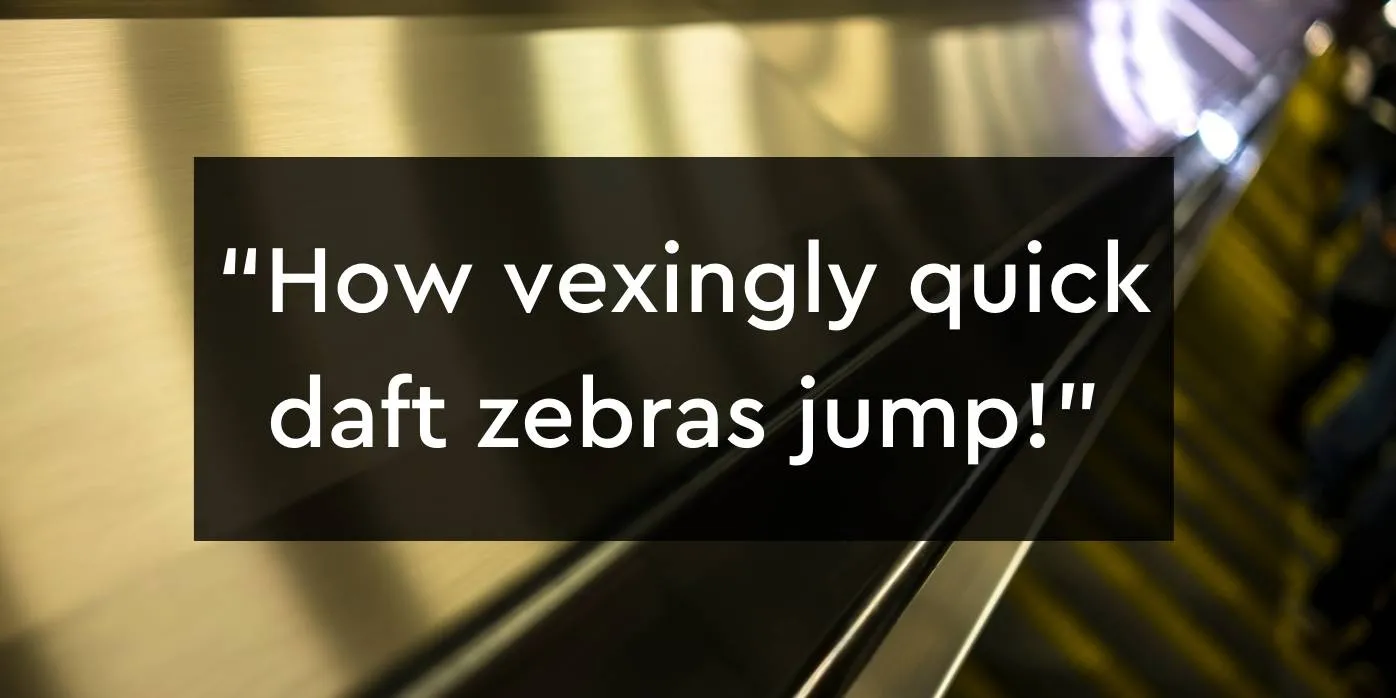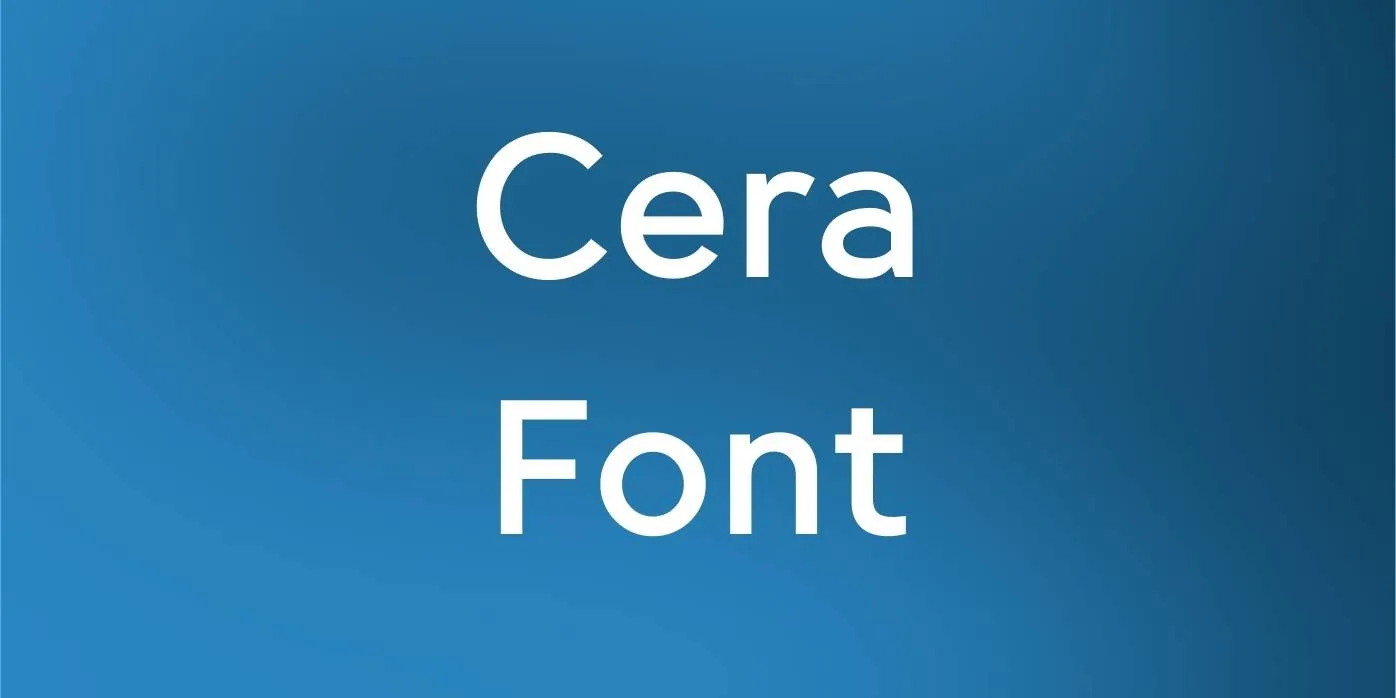
Cera Font
Here, we present a most popular typeface that is developed with more classic features named Cera Font. It has created by Jakob Runge. This sans serif typeface comes with a stylish look that makes it perfect for headlines, logos, and other display purposes. Cera Font family consists of 6 different styles that offer great versatility and can be used for a variety of purposes.
The light and regular weights are well-suited for body text, while the bolder styles work great for headlines. It also comes in 12 special and strong weights. Its alternative tungsten font is perfect for a lot of designs. It is best for Adobe and Canva.
If you’re looking for a stylish sans serif font that’s still easy to read, then it is a great option. It’s also versatile enough to be used for a wide range of projects. Its large X-height makes it legible at small sizes and its wide range of weights makes it perfect for both headlines and body text. You need to utilize its generator tool that is best for various designs.